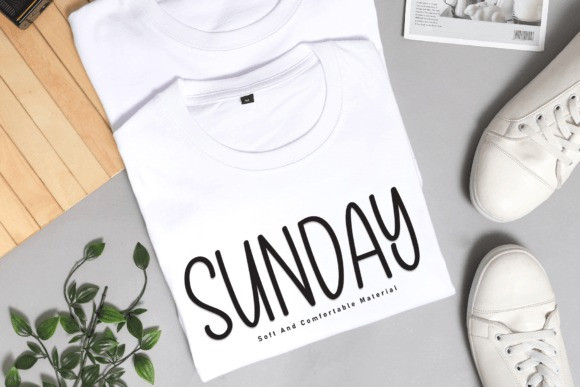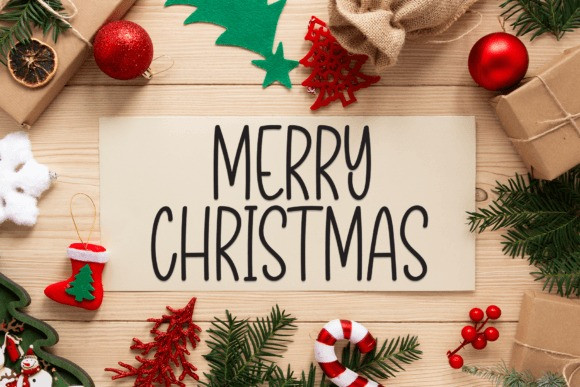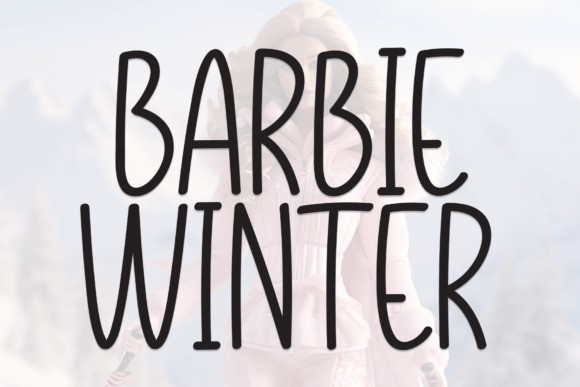
Barbie Winter Font
Barbie WInter Font is a sweet and friendly handwritten display font. Cute and fun, this font is ideal for writing wedding invitations, cards, or any other design that might need a fun touch!